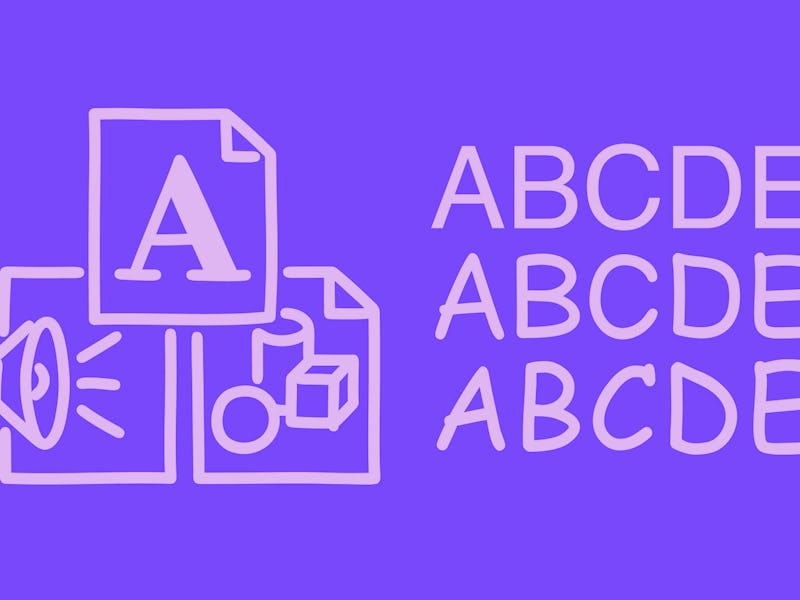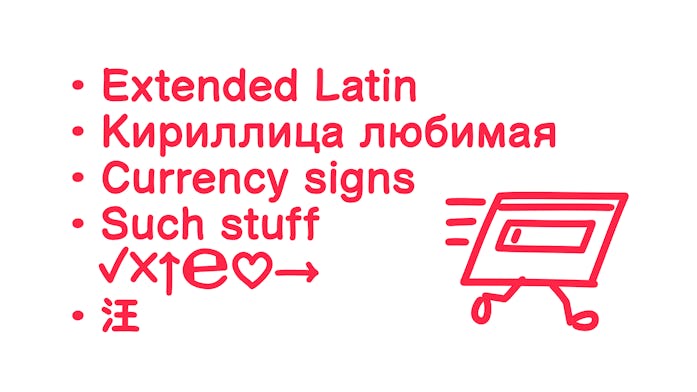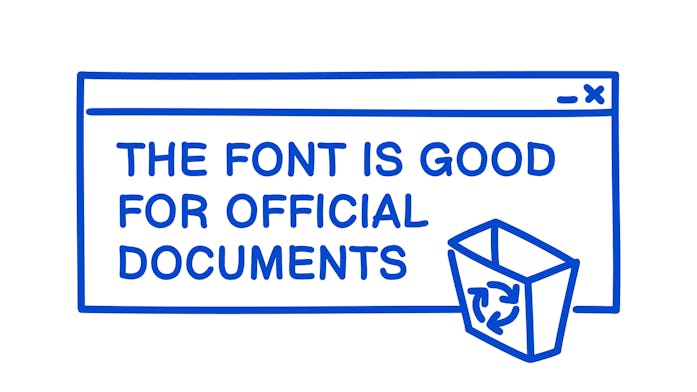
Comic Helvetic is an unholy combination of two iconic fonts
No one asked for this mix of Comic Sans and Helvetica, but I can't deny, it's pretty compelling.
I associate Helvetica with a certain sense of order — refinement, that with overuse, becomes lazy shorthand for being thoughtful. It’s a tasteful business suit, but it’s still a business suit. Comic Sans, on the other hand, just makes me think of clowns.
Comic Helvetic, an experimental font from designer Alexander Pravdin, is the “wearing a business suit with clown shoes” of fonts (via kottke.org).
In other words, it’s perfect.
Unholy union — Comic Helvetic carries some elements of the goofier, child-friendly Comic Sans, like the rounded ends on each character (one of the parts that’s supposed to evoke the hand-inked letters of a comic strip) and the simple, and highly legible lines and shapes of Helvetica.
Both fonts are sans-serif (without the little “tails” you might find on Times New Roman) so combining them actually works far better than my initial knee-jerk reaction prepared me for. Comic Helvetic is easy to read and a little bit playful. Great for school or the office.
Other designers have tried to elevate Comic Sans in the past — Comic Neue lightens and straightens out the classic font to produce something that’s far more presentable — but Comic Helvetic has a certain chocolate and peanut butter energy that’s hard to deny. Two great tastes (fonts) that taste great together.
There’s no soul-searching quest necessary. Comic Helvetic is undeniably good.